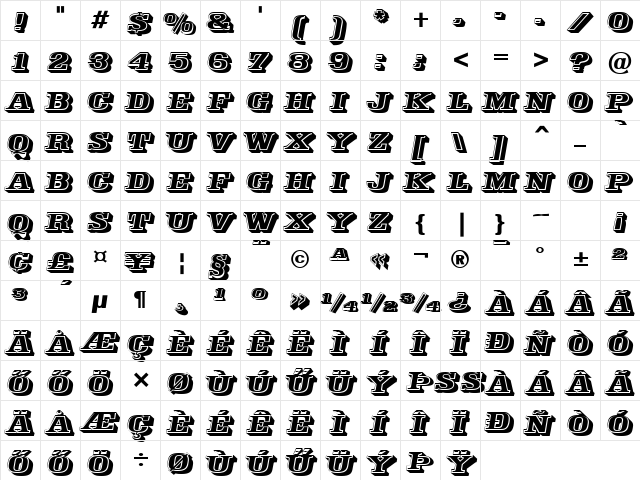
Complete Decorated-035-HU Normal glyph index. Displaying only characters natively supported by Decorated-035-HU Normal font.
Decorated-035-HU is a composed and adaptable typeface that performs quietly and consistently across a wide range of design contexts.